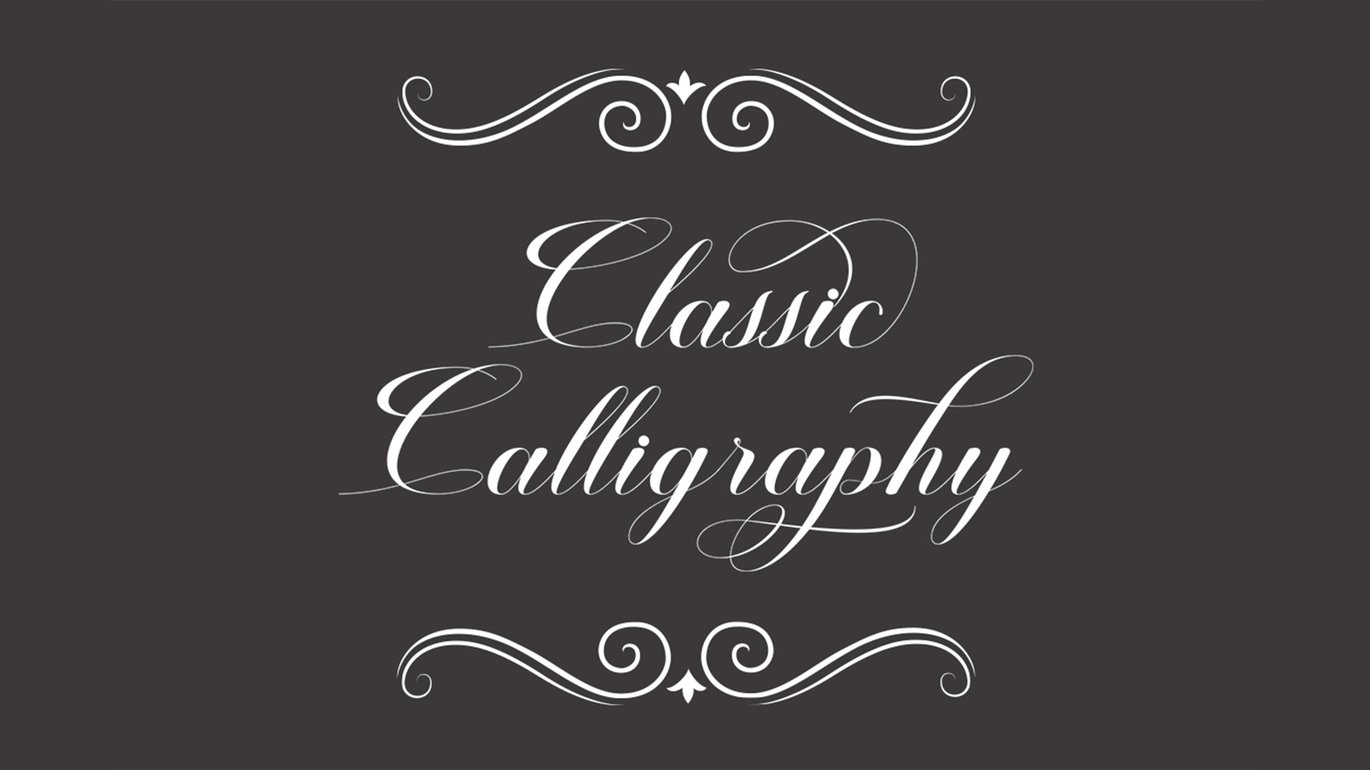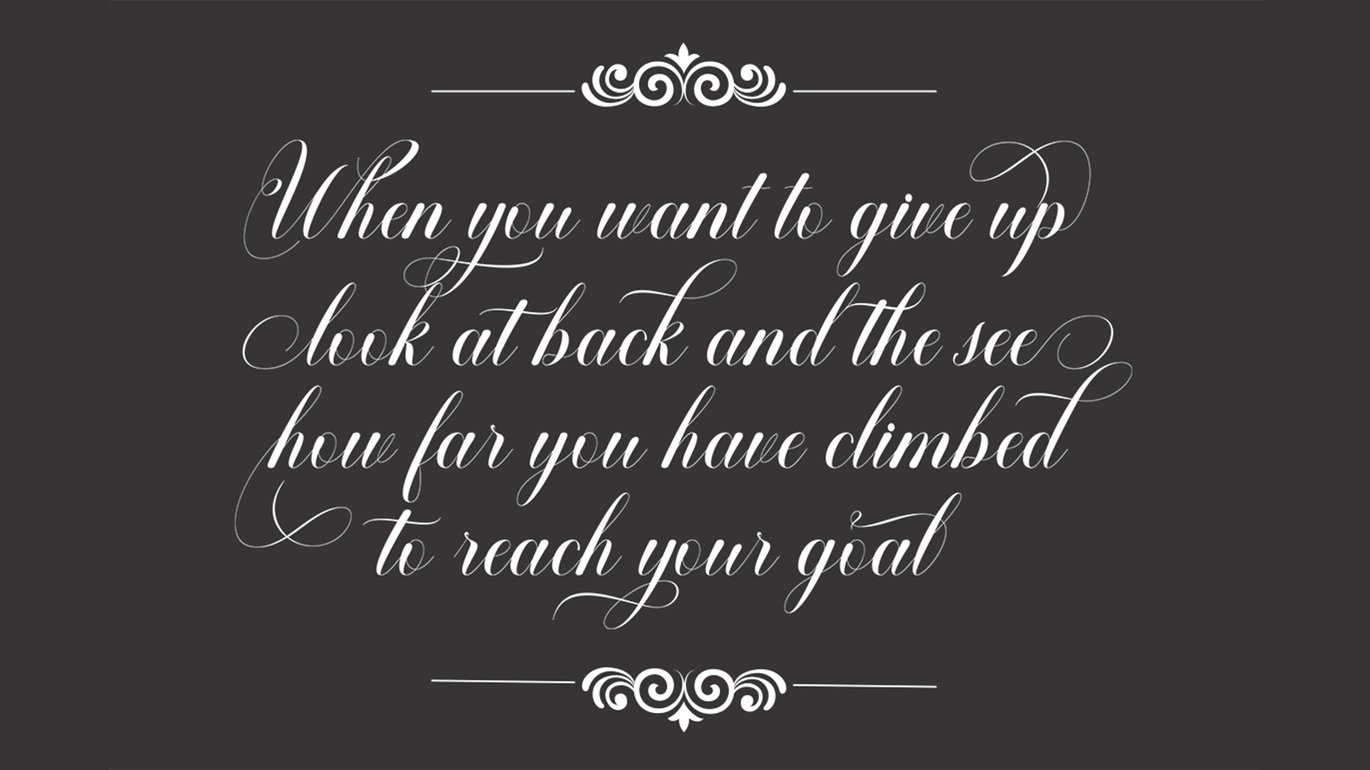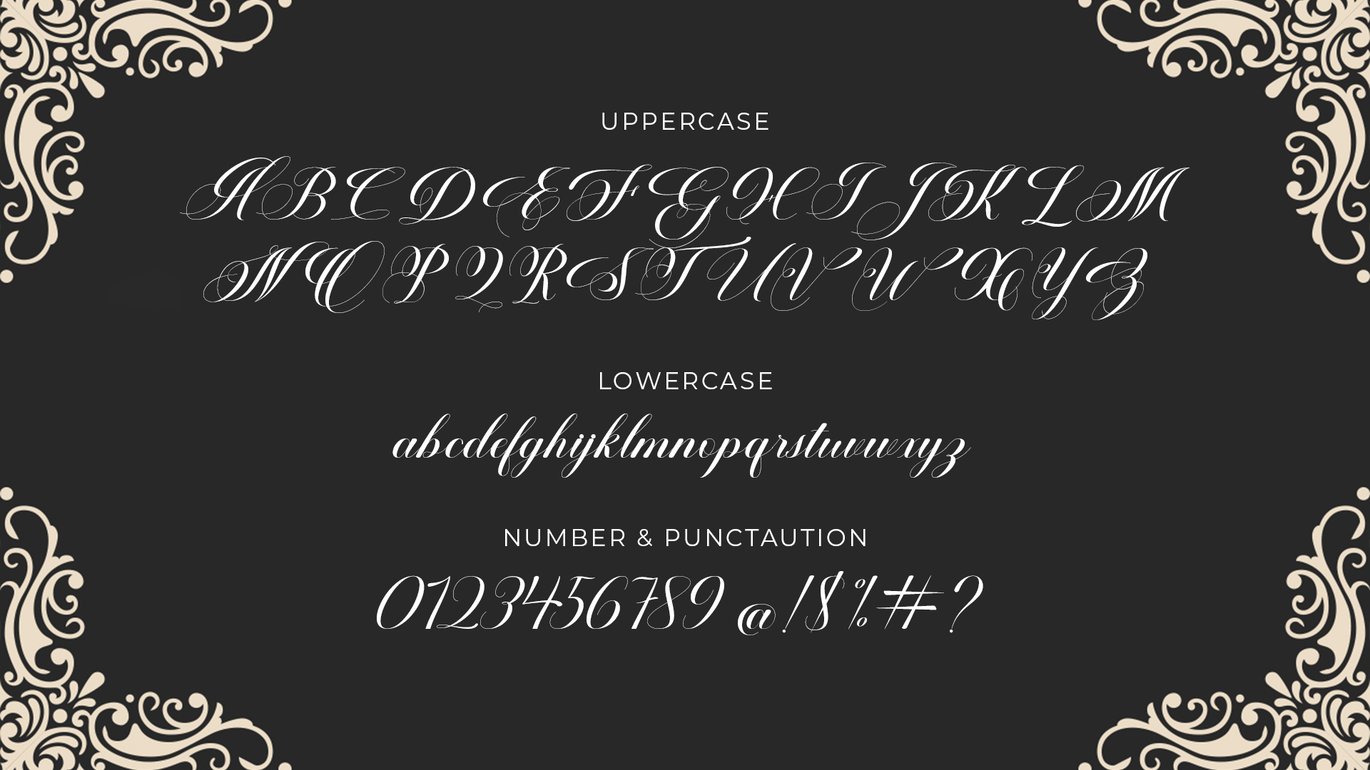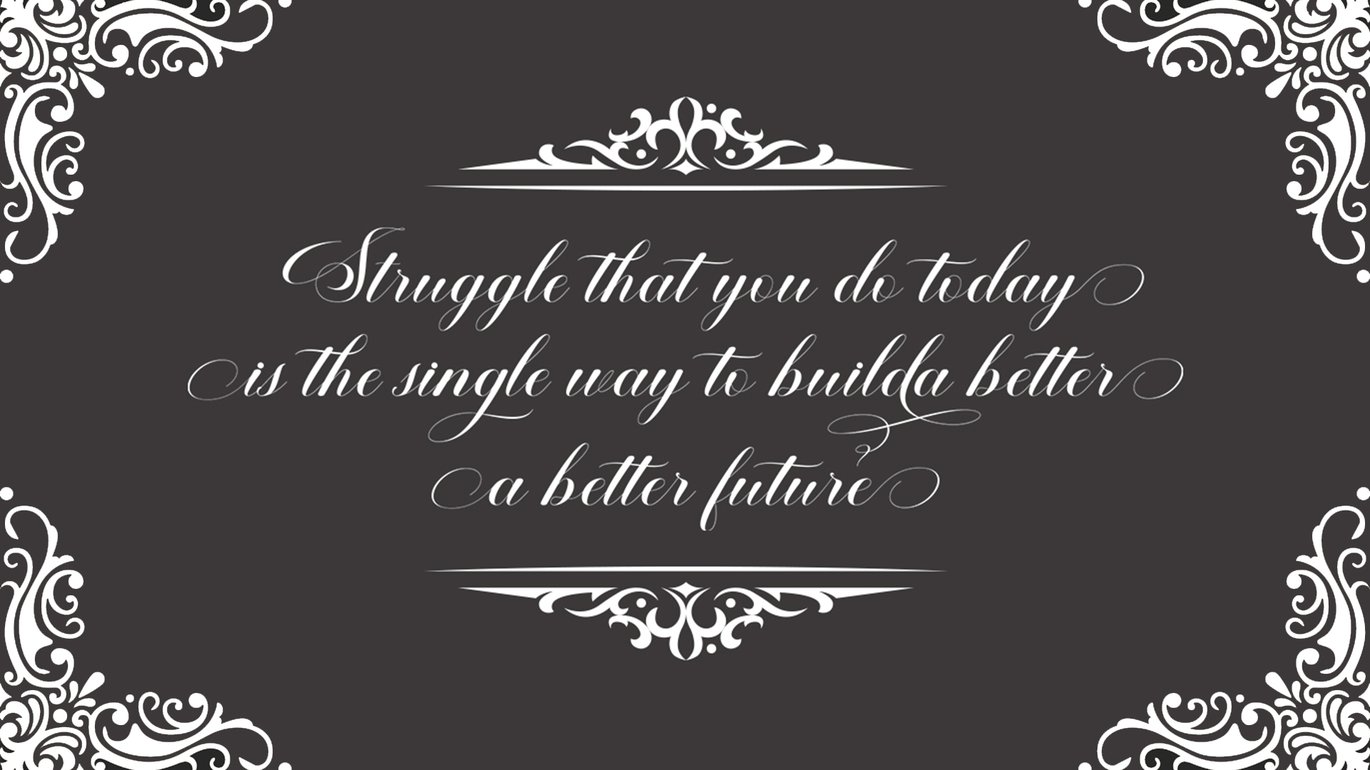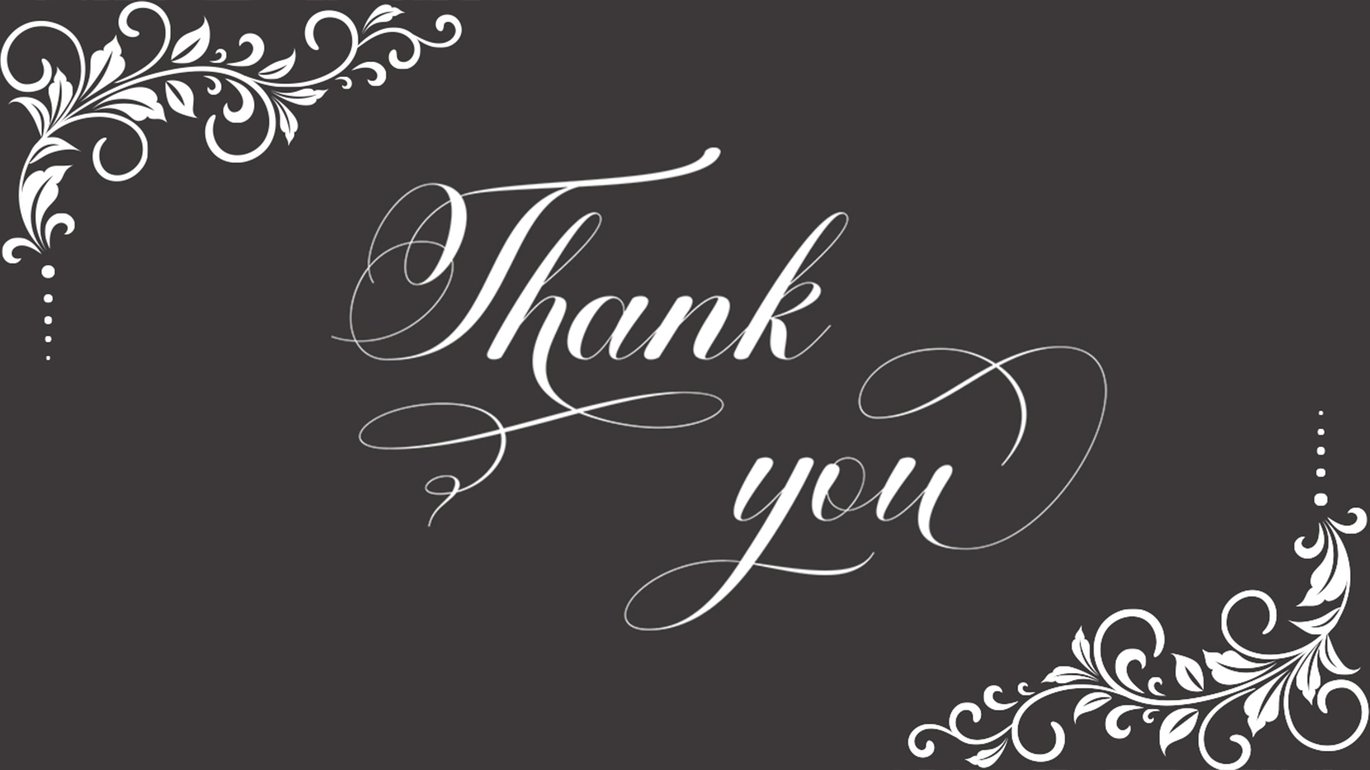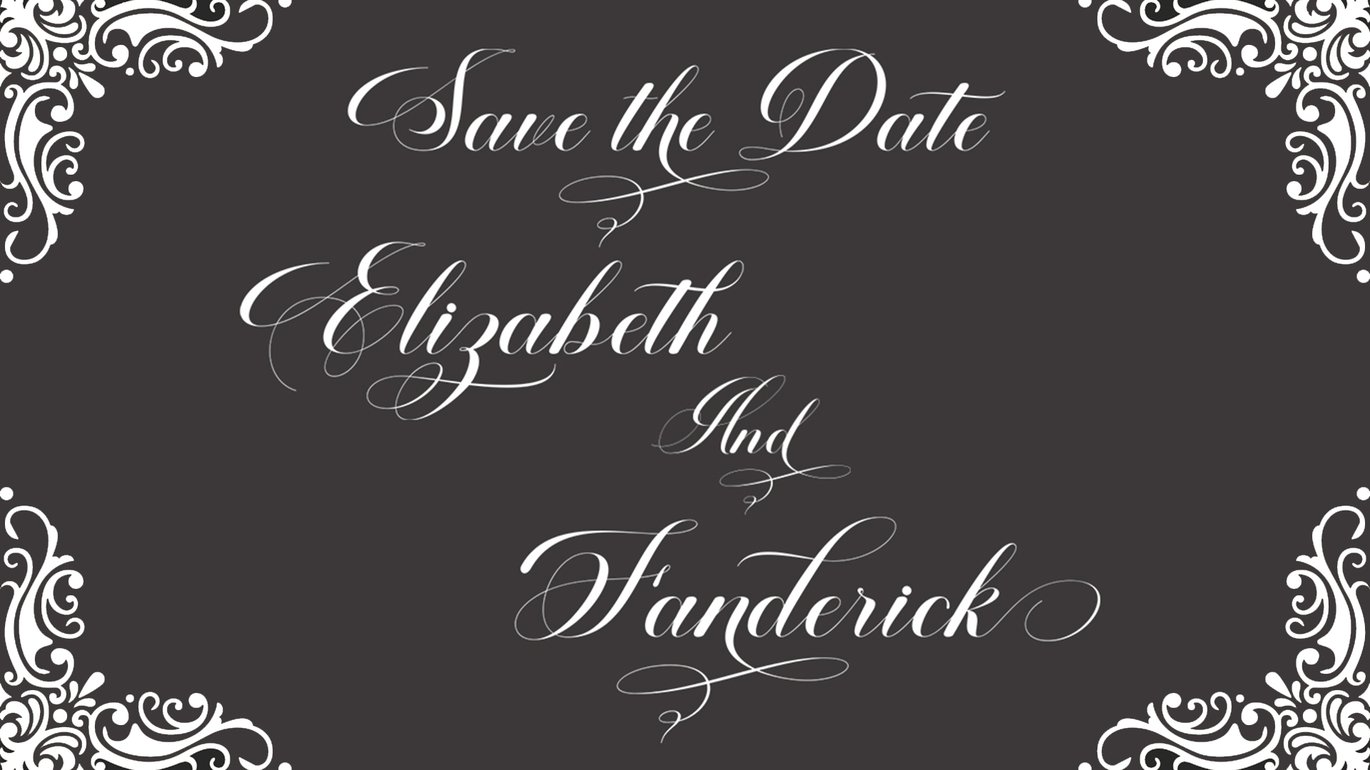
Ballistic Script
Introducing Ballistic Script, an elegant and luxurious modern calligraphy font. Crafted with dynamic, flowing strokes and beautiful contrast, Ballistic Script brings an authentic and classy handwritten touch to any design. Its letterforms feel organic and dance across the page with a graceful flourish.​
Each character is meticulously designed to ensure harmony and legibility, making it the perfect choice for projects that require a luxurious personal touch. With elegant swashes and stylistic alternates, this font offers limitless flexibility to create unique and captivating typographic compositions.